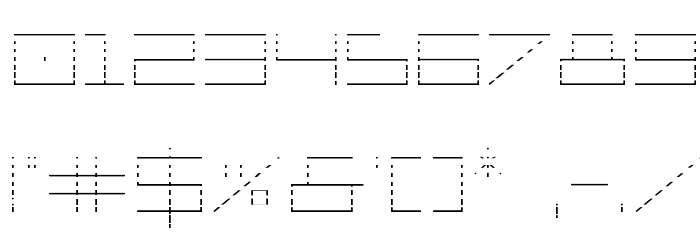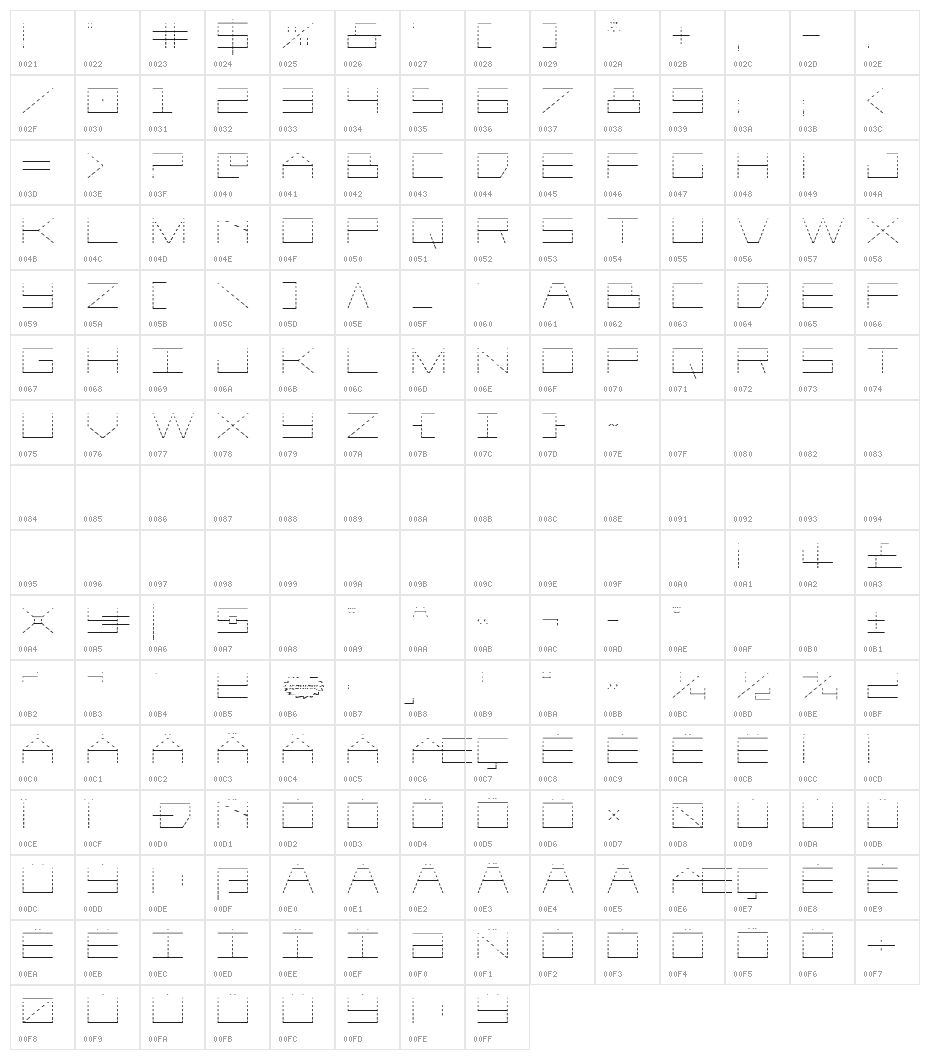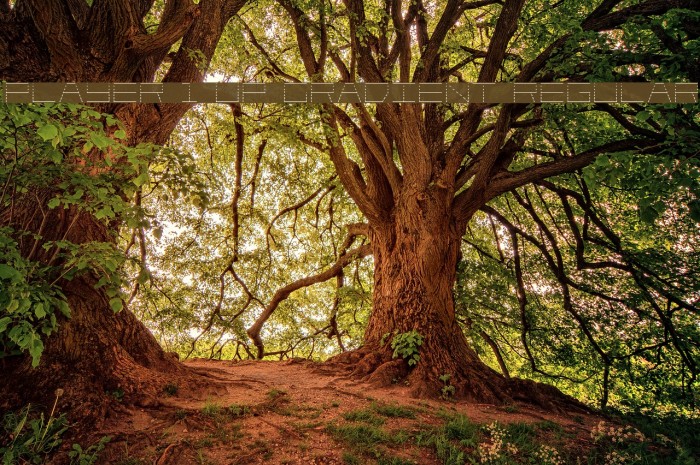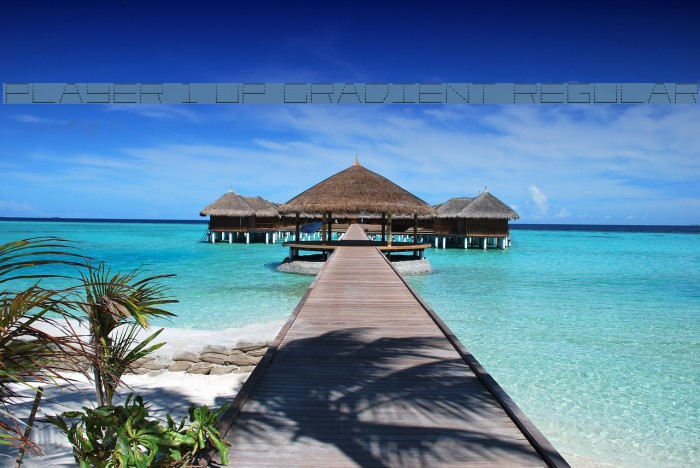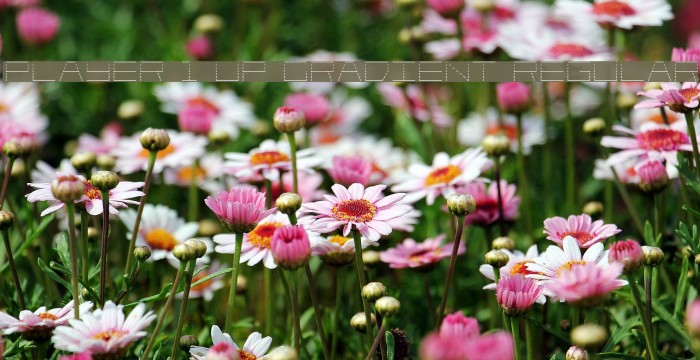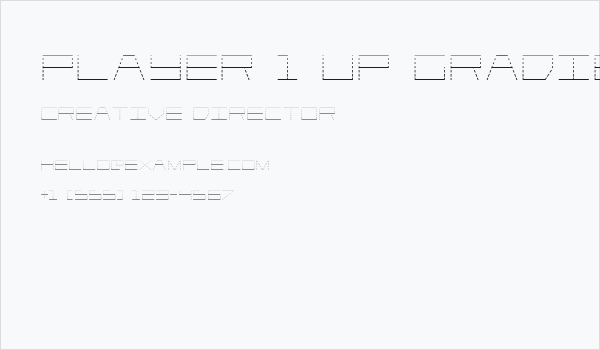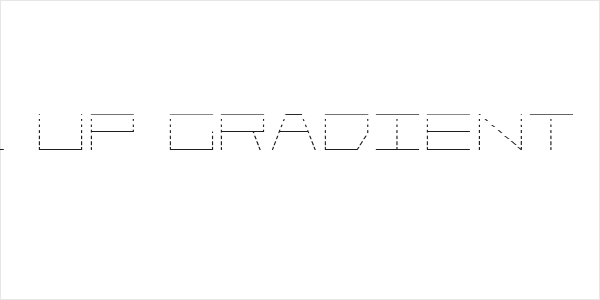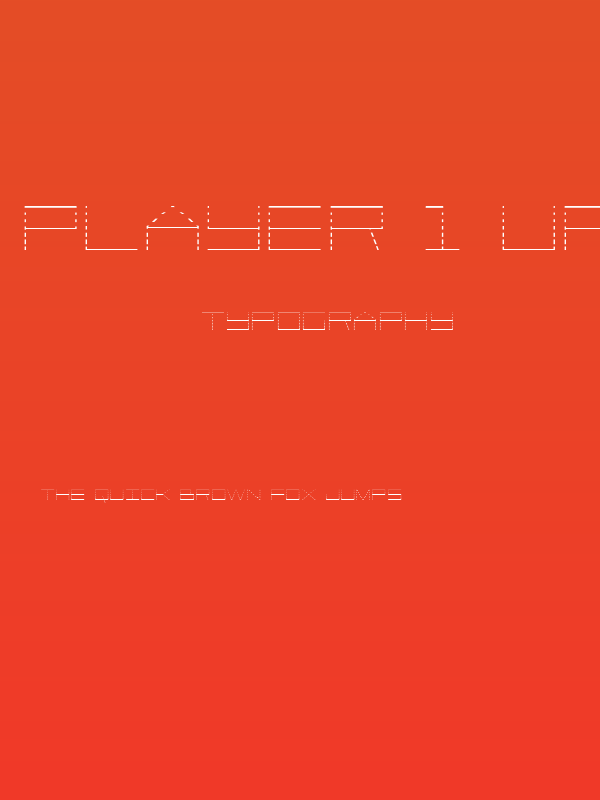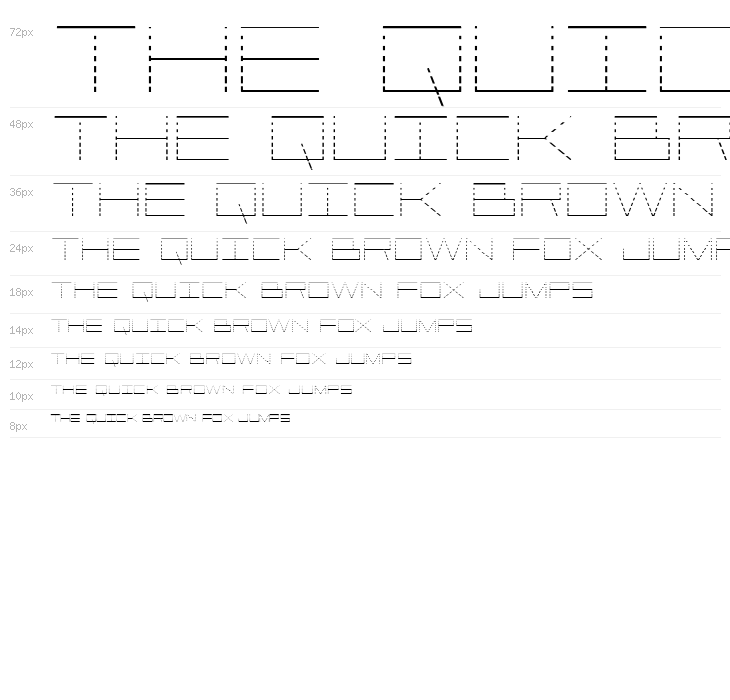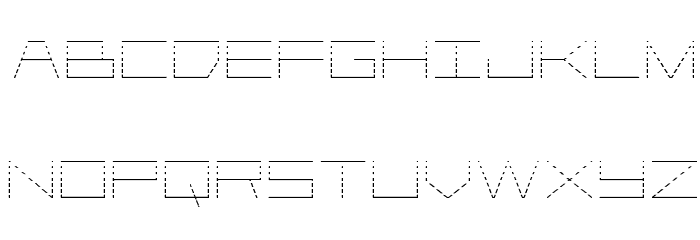
Player 1 Up Gradient Regular Font
Player 1 Up Gradient Regular Description
This font features a unique, pixelated style reminiscent of classic arcade games. Each character is constructed using a series of dots and lines, creating a digital, retro aesthetic. The uppercase and lowercase letters maintain a consistent geometric form, while the numbers and special characters follow the same design principle. The overall appearance is clean and structured, with a modern twist on vintage gaming typography. The spacing between characters is uniform, contributing to its legibility and distinct style.
| Use Case | Logos, Posters, Digital Art |
| Proposed Projects | Ideal for video game designs, retro-themed posters, digital art projects, and any creative work that seeks a nostalgic, gaming-inspired look. |